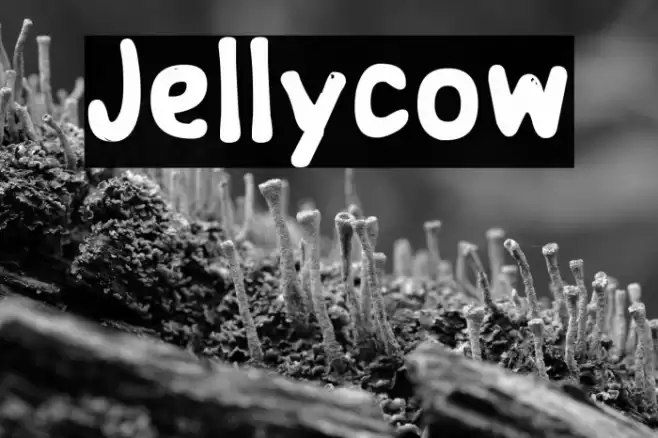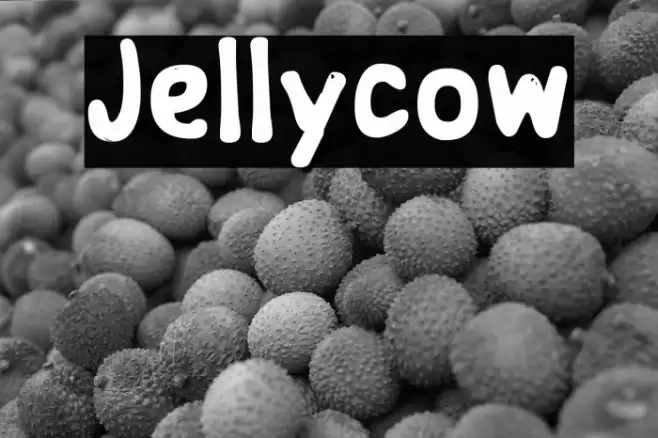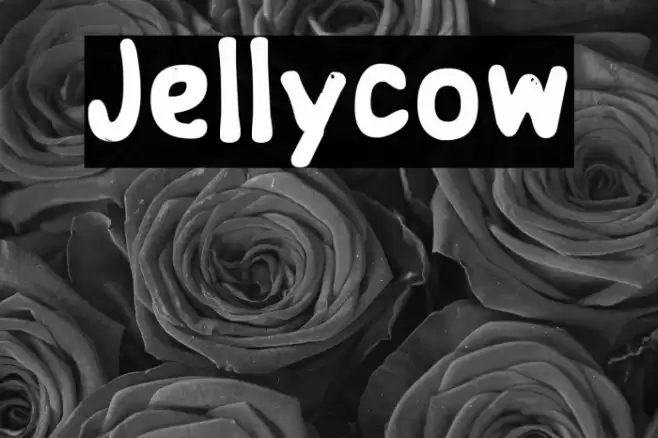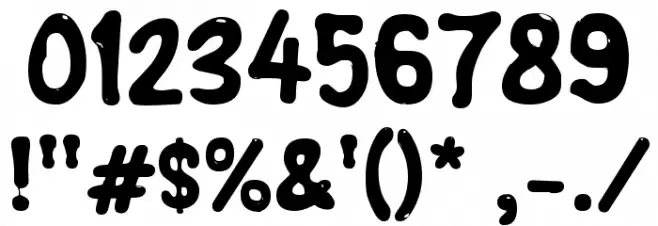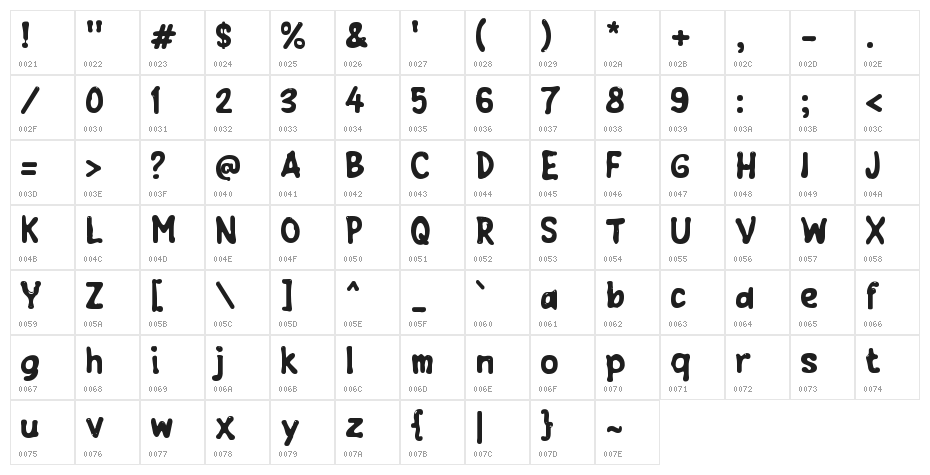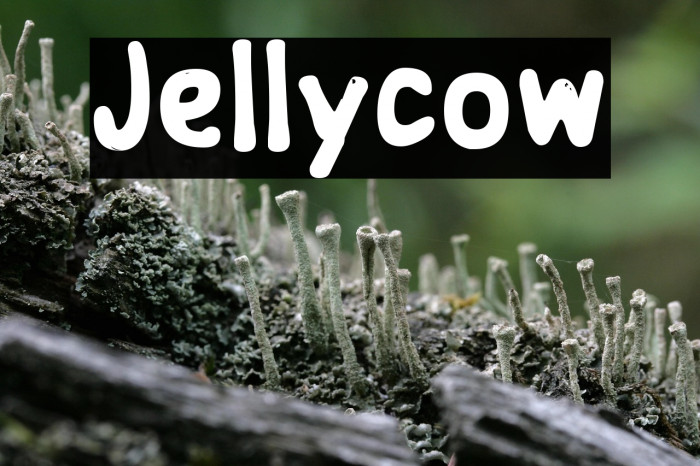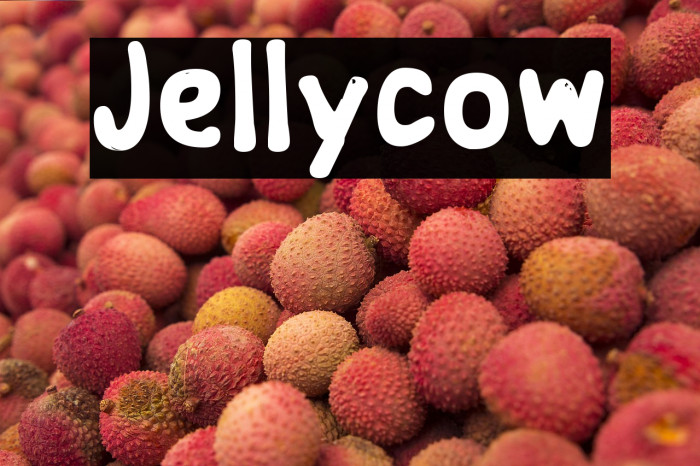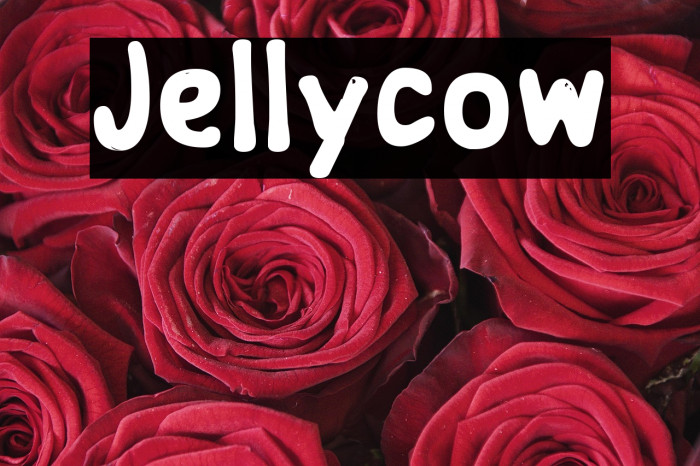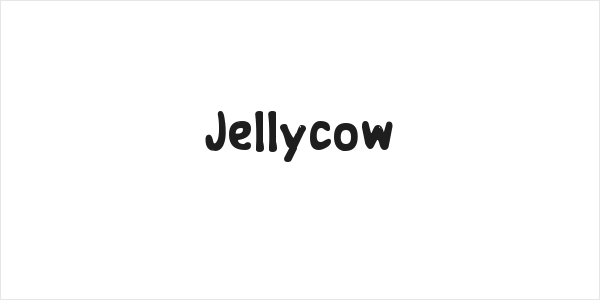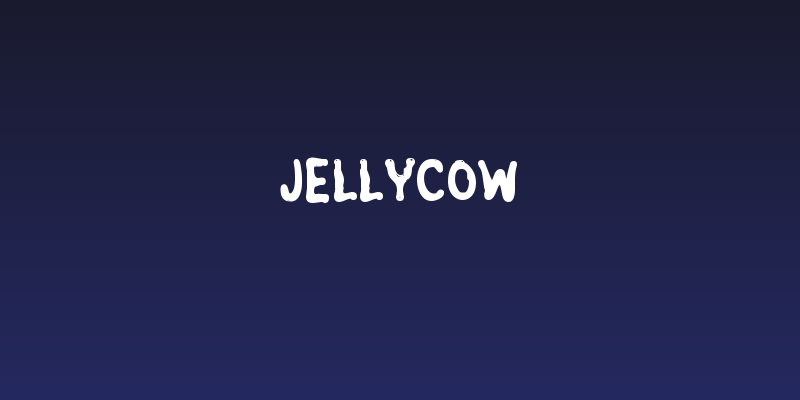
Jellycow Font
Jellycow Description
This playful and whimsical font features bold, rounded characters with a slightly irregular form, giving it a hand-drawn appearance. The strokes are thick and consistent, creating a sense of fun and creativity. The uppercase and lowercase letters maintain a uniform style, while the numbers and special characters complement the overall design. The font's unique style makes it stand out, perfect for projects that require a touch of personality and charm.
A playful, bold, and rounded font with a hand-drawn feel from Uncategorized fonts.
- Font: Jellycow
- Proposed Projects: Ideal for children's books, playful branding, posters, and creative invitations.
- Overall Style: Playful, Whimsical